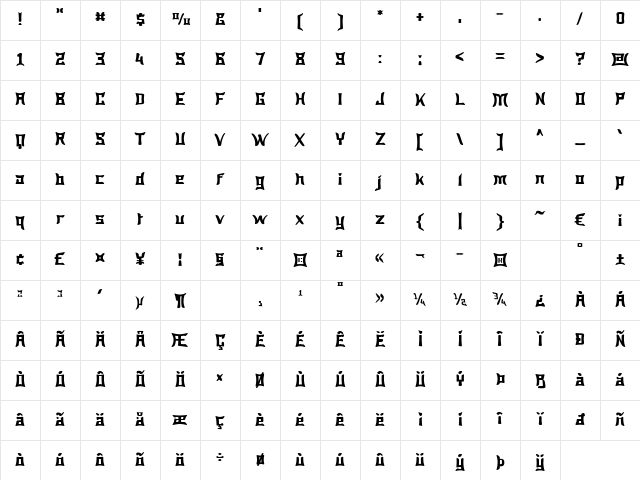
Wewak Regular Free Font
Wewak Regular
Design Context for Wewak
Wewak is a composed and adaptable typeface that performs quietly and consistently across a wide range of design contexts.